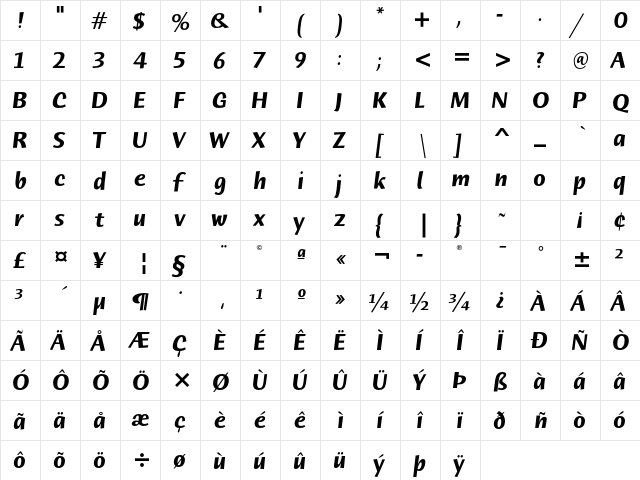
Humana Sans ITC Std Bold Ita
| Designer | Timothy Donaldson |
Design Context for Humana Sans ITC Std Typeface
Humana Sans ITC Std is a composed and adaptable typeface that performs quietly and consistently across a wide range of design contexts. The slanted form adds forward momentum and visual energy. The heavy weight commands attention and anchors typographic hierarchies.
Pro Tip: Try Humana Sans ITC Std for annotation and caption copy alongside an upright companion — the contrast in angle creates a dynamic but ordered typographic system.